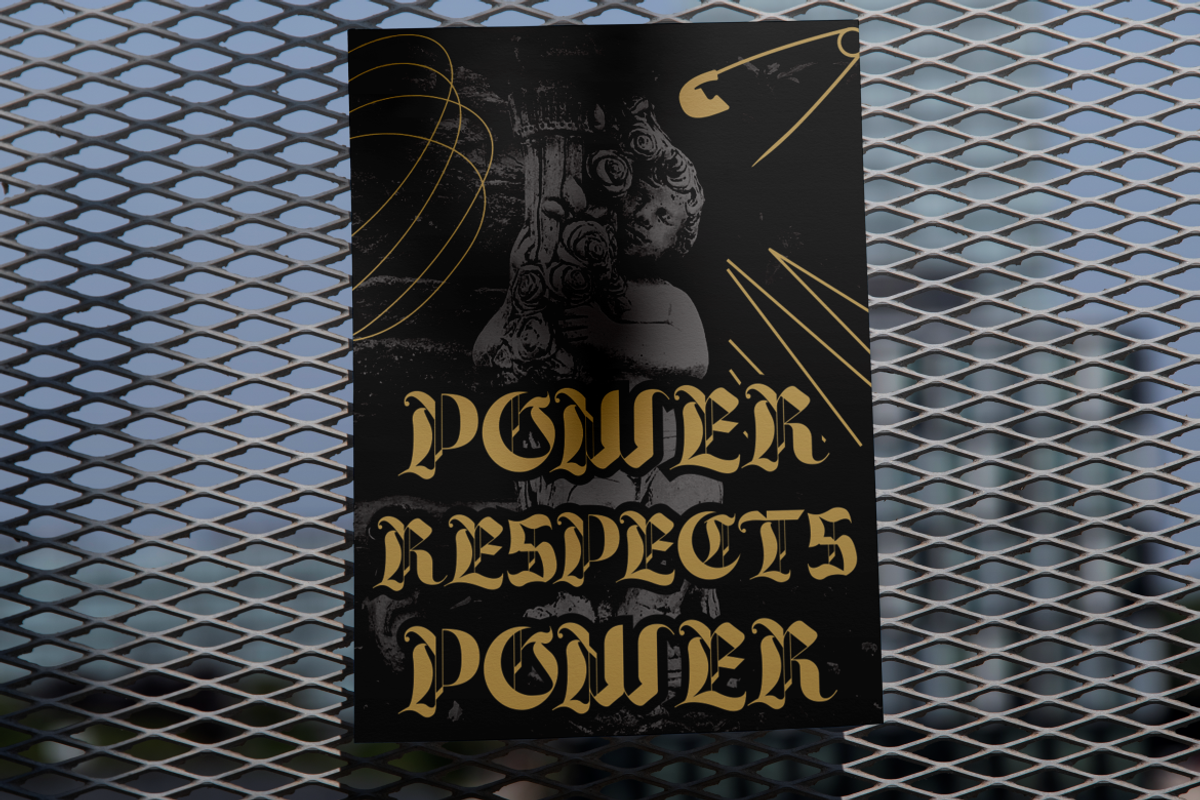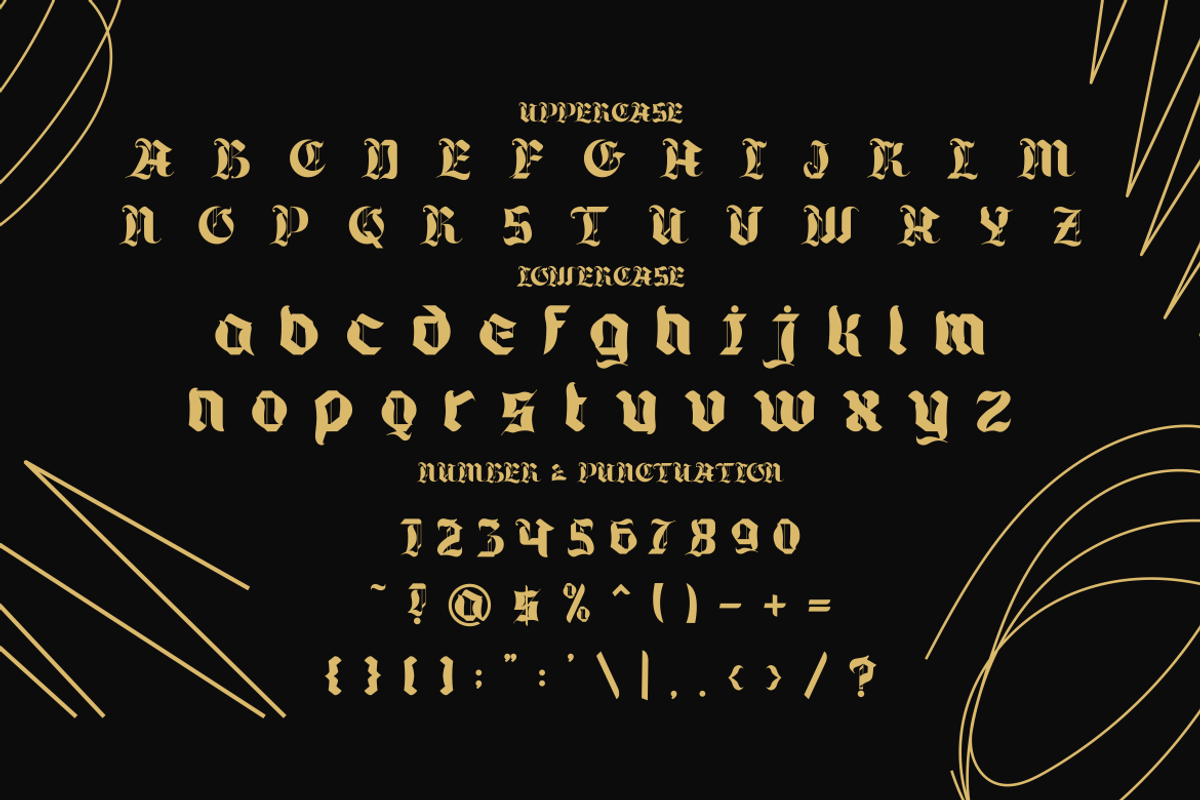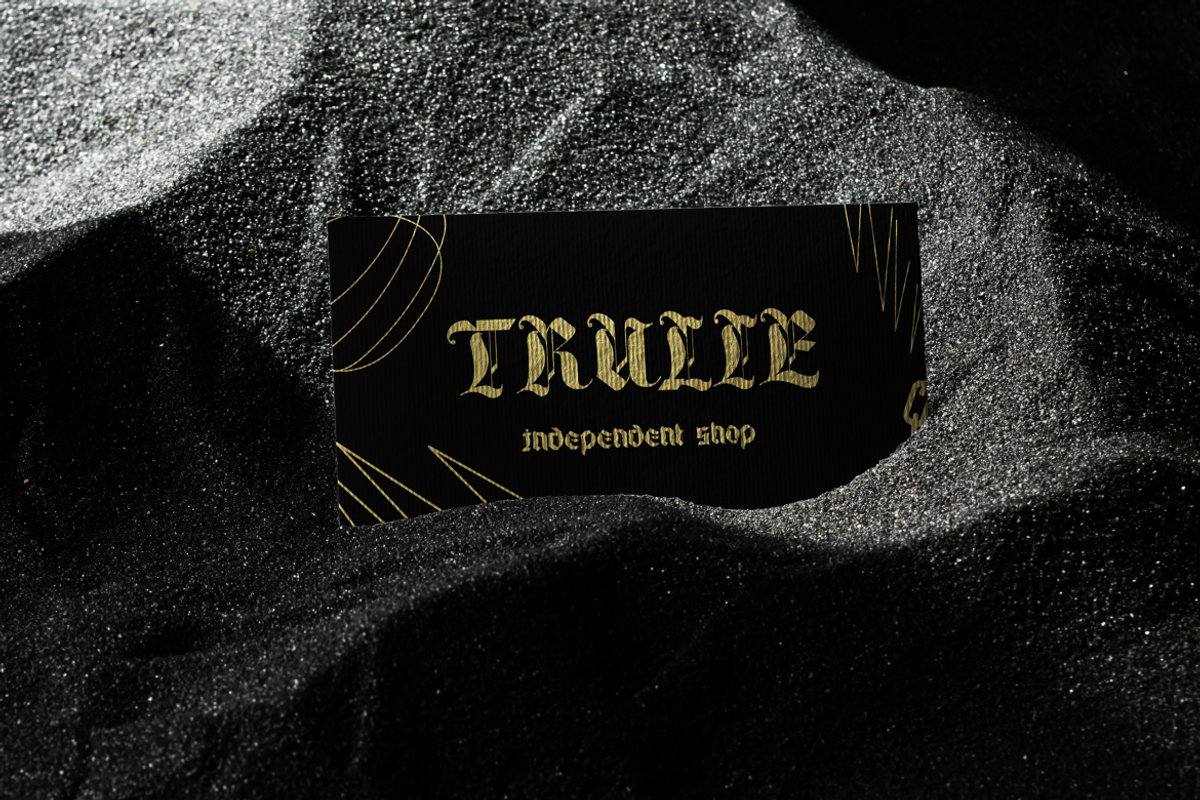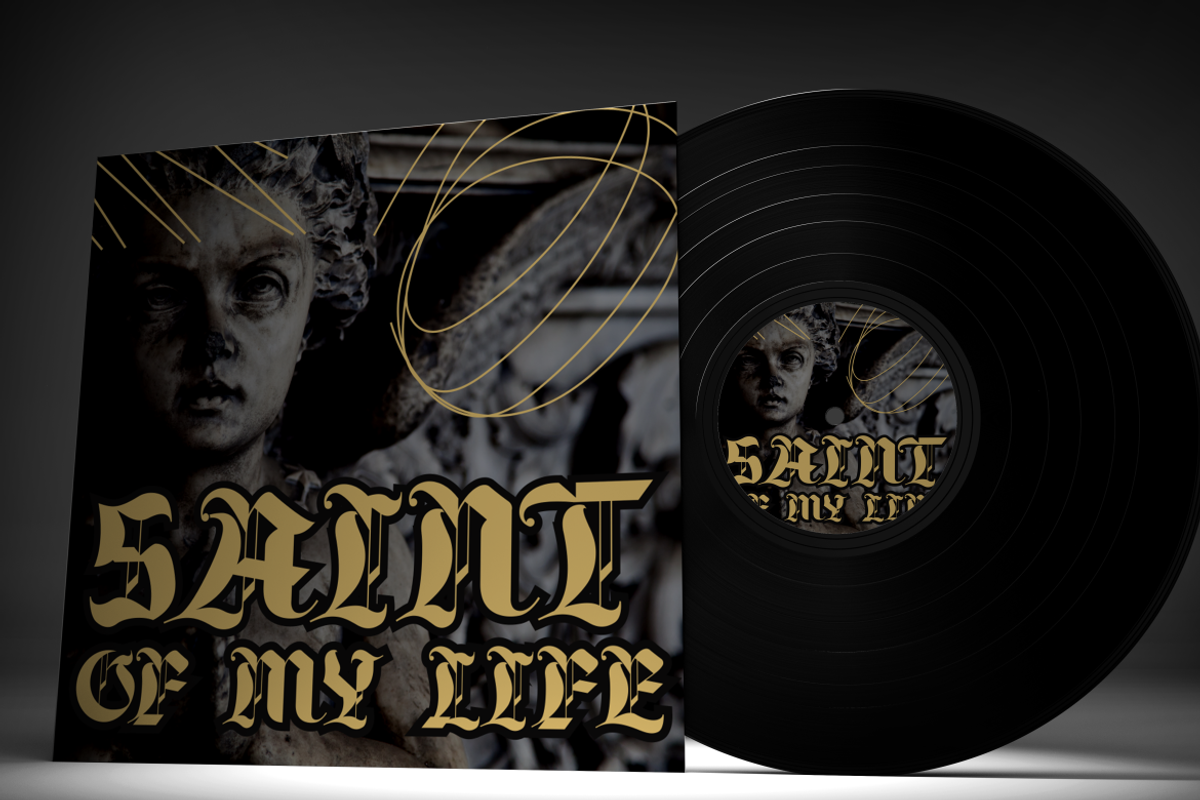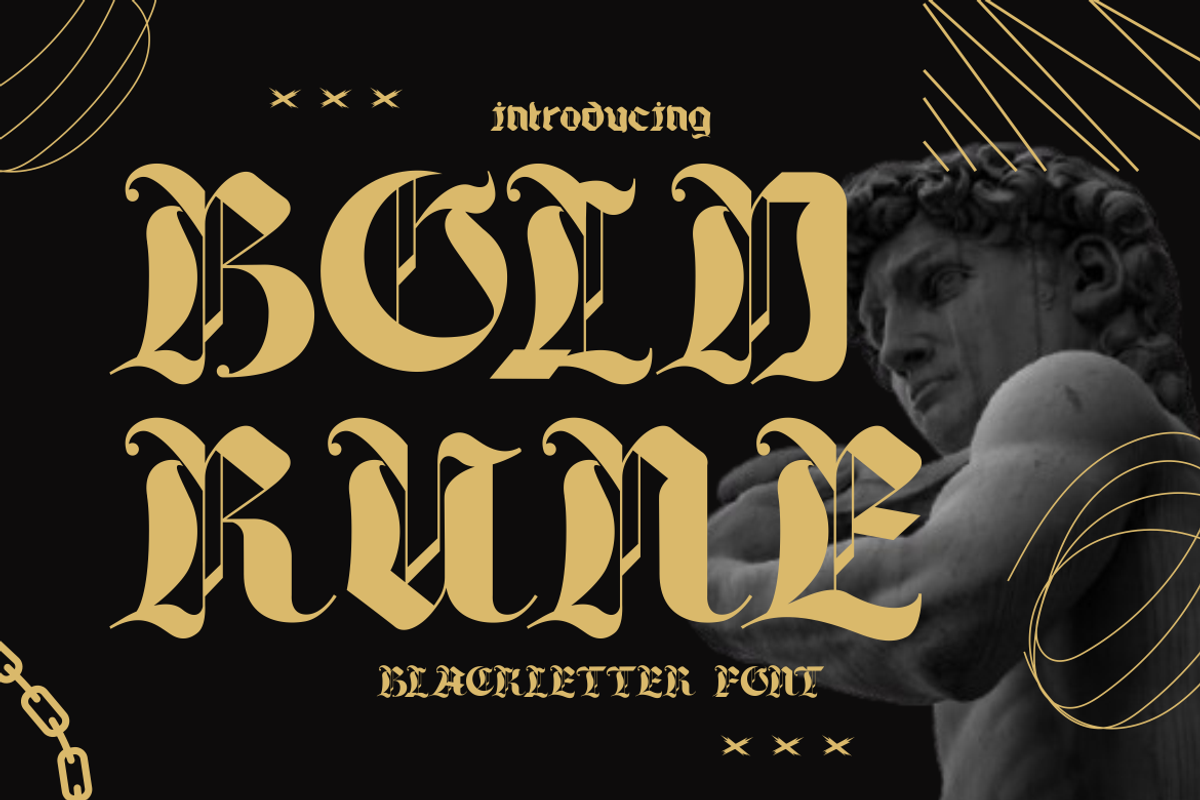
Bold Rune Blackletter Font
Bold Rune – Blackletter Font is a striking typeface that embodies the essence of gothic tradition with a modern edge. The font design is inspired by medieval scripts, with bold strokes, sharp serifs, and intricate curves that create a sense of authority and elegance. Its letters are highly ornamental yet remain balanced, making it suitable for both classic and contemporary layouts. The strong presence of Bold Rune makes it perfect for projects that demand visual impact, such as logos, posters, book covers, and branding identities. Each character is carefully crafted to preserve legibility while highlighting the dramatic and artistic nature of blackletter typography.
This font is more than a design element—it is a statement of style. Whether used for gothic-inspired music artwork, tattoo designs, vintage packaging, or magazine titles, Bold Rune delivers unmatched intensity and sophistication. Its dark medieval charm pairs well with modern design trends, offering versatility across both print and digital platforms. With full uppercase, lowercase, numbers, and punctuation, plus multilingual support, Bold Rune is ready for global creative projects. Bring your designs to life with the bold, mysterious, and artistic edge of this timeless blackletter font.